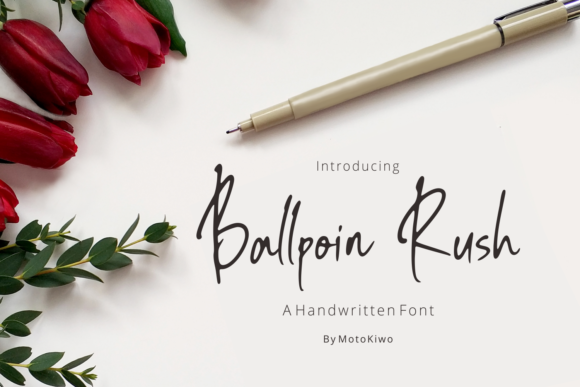
Introduction to Ballpoin Rush Font
Ballpoin Rush is a flowing and delicate handwritten font.
Fall in love with its incredibly versatile style and use it to create spectacular designs .
Key Features of Ballpoin Rush Font